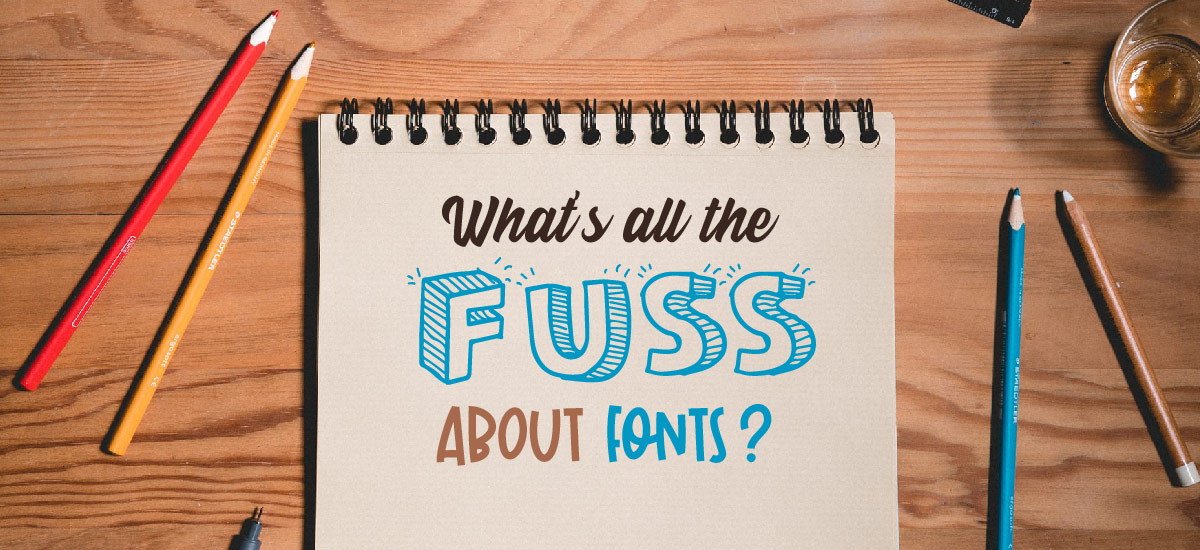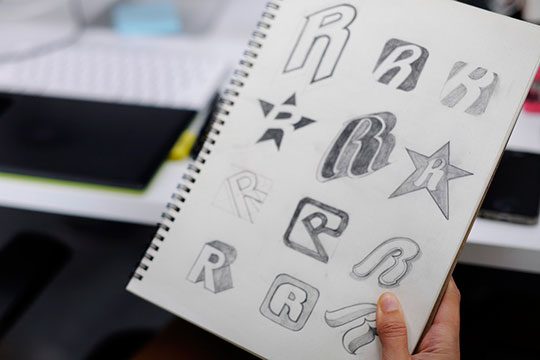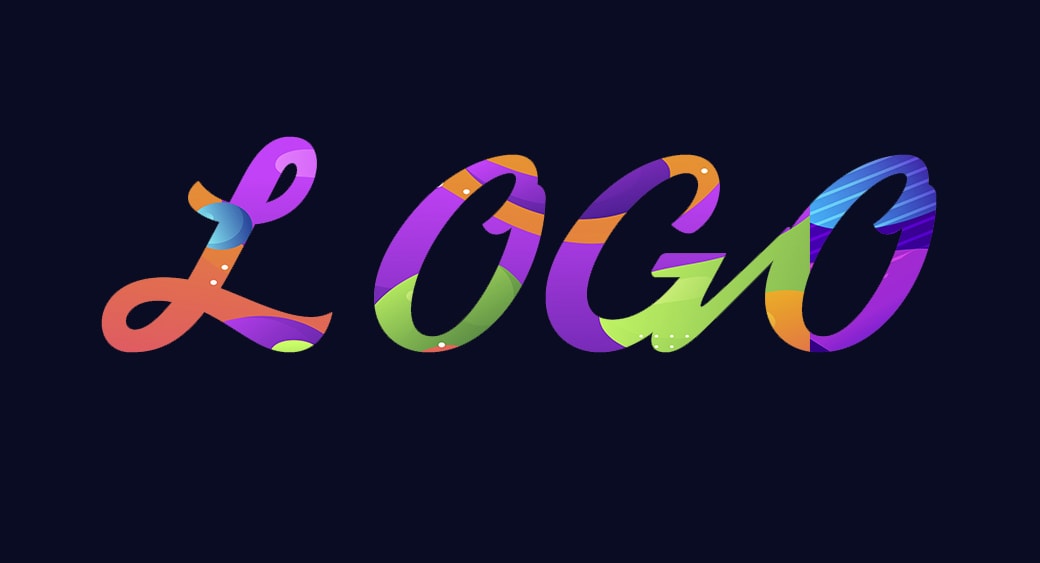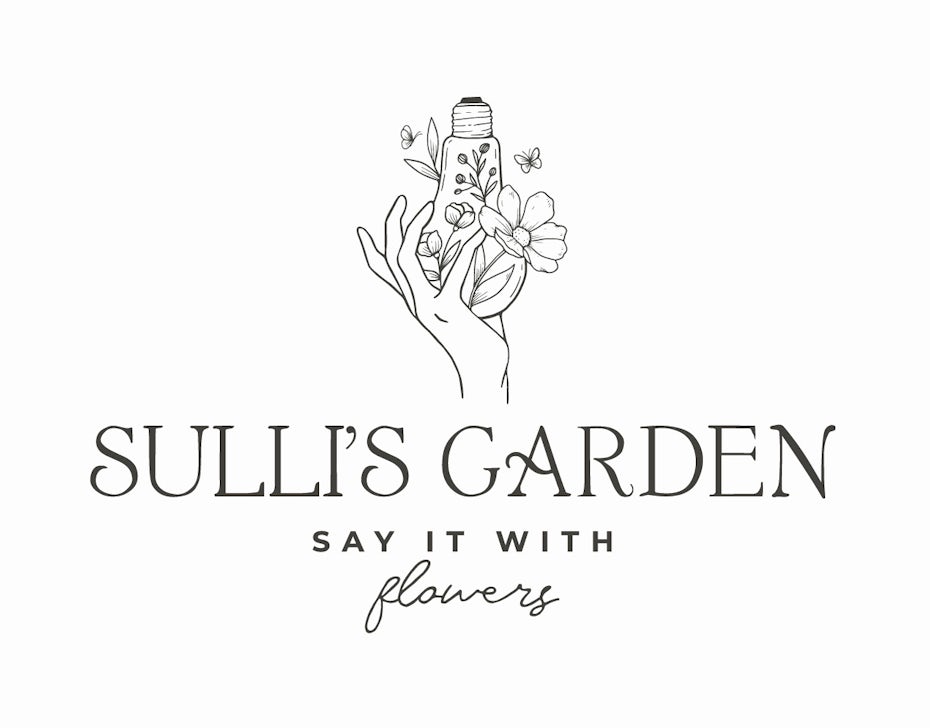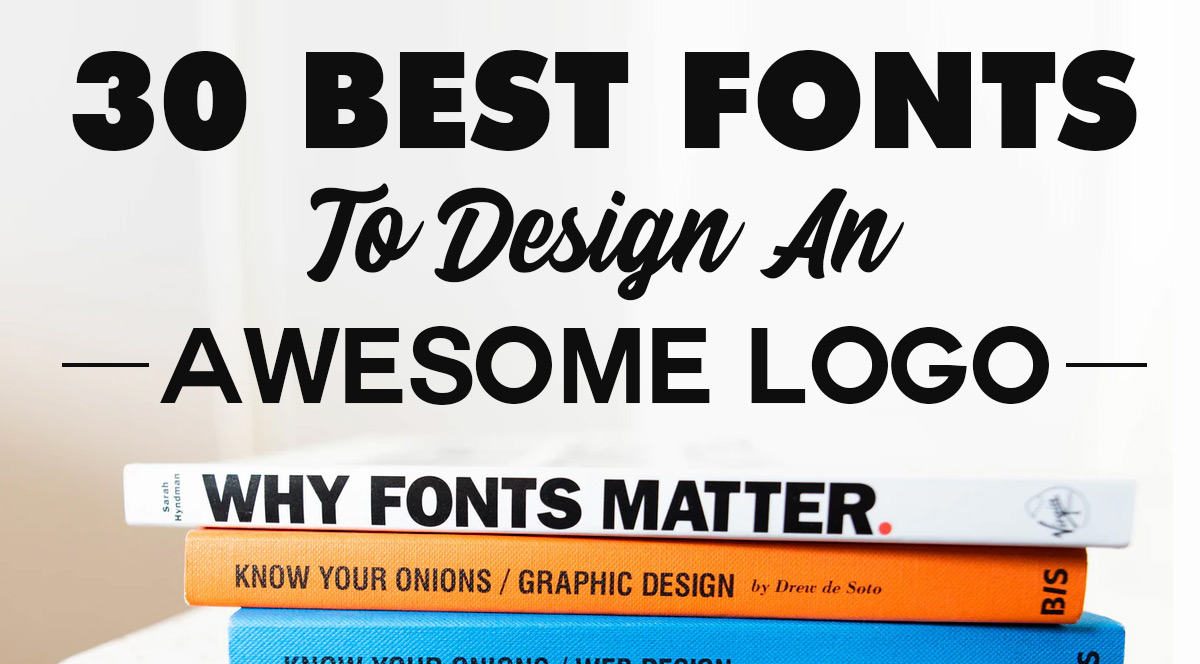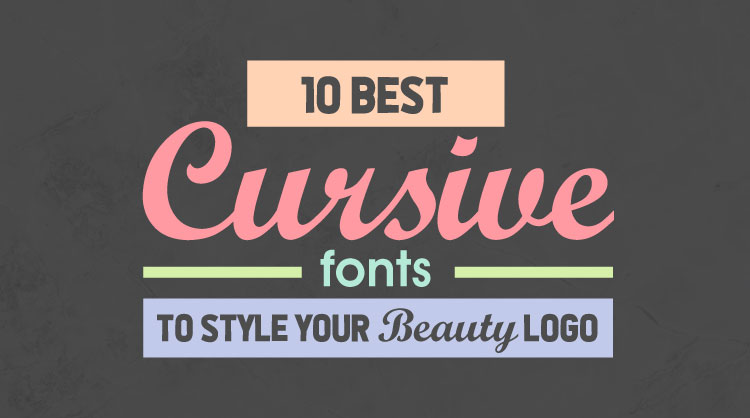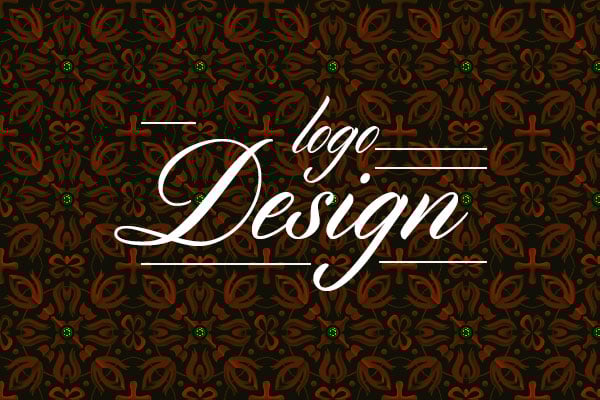
The best free fonts include some truly brilliant designs which isnt always true of free fonts in general. It only takes consumers 7 seconds to decide on their first impression of you.
Randrake is a modern logo font that comes with a stylish script design.
Logo fonts design. Logo Font Logo fonts are essential for the visual appearance of your brand name. Indigo is a modern font featuring a chunky design which makes it perfect for designing logos for startups websites and creative brands. The free fonts are applicable for any type of graphics print design logos and t-shirt designs.
One of the best modern fonts for Logo Design. The font is available in 2 versions. The following typefaces and fonts are ideal to make an attractive design and perfect for logo design business cards branding mockups packaging design and any other web and.
It is very important to choose a cool font for logo design. Kingdrops offers 50 hand-drawn objects as well as 12 logo templates to give you a shot of inspiration. Creating a brand mark with modern logo fonts is a straightforward way to build a relevant brand identity.
The unique design of the characters will make this font fit in well with both digital and print designs. A neat versatile font the Helvetica family is used extensively by many brands including the Nestle BMW Lufthansa and General Motors. Youll get alternates so you can mix and match to make Kingdrops your own.
Reborn Free Stylish Display Font Reborn is a. The fonts in use section features posts about fonts used in logos films tv shows video games books and more. If intentionally or unintentionally you end up selecting an unfitting font for your logo then it ends up having a negative impact on your brands image and personality.
Brolink Sci-fi Logo Font. It is a sans serif font Being highly readable it has remained a favorite among graphic designers. The Kingdrops Handcrafted Font for Logo Design A vintage font duo the Kingdrops is a supreme choice for your next logo design project.
With a contemporary font you can improve your design projects for your website social media graphics and of course logo design among many others. Fonts that go in logos adds to the personality image and story of a brand. This font is ideal for crafting logos for luxury fashion and apparel brands.